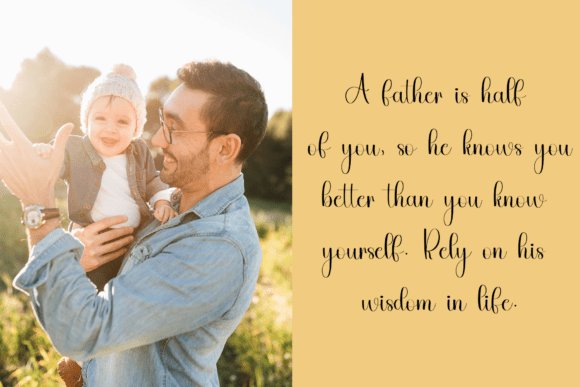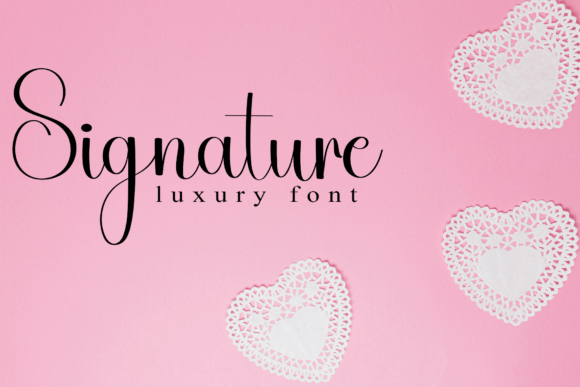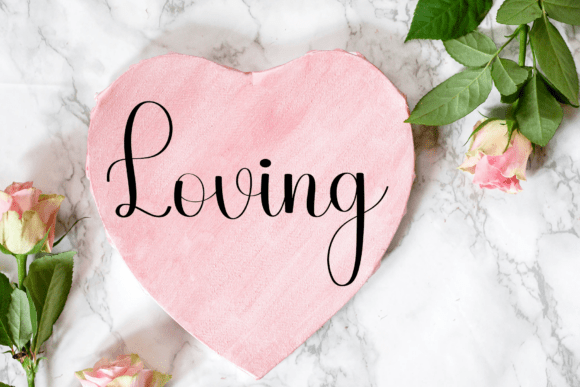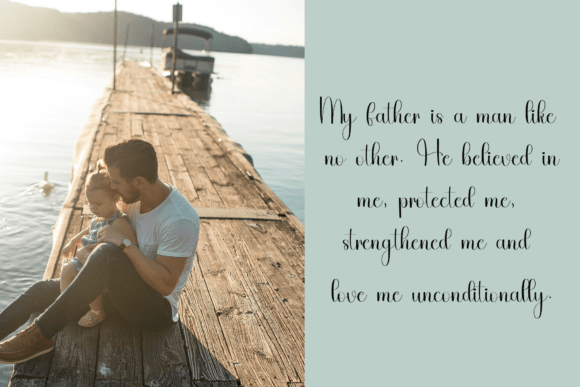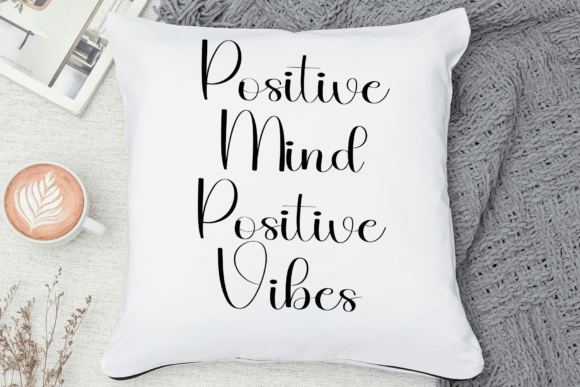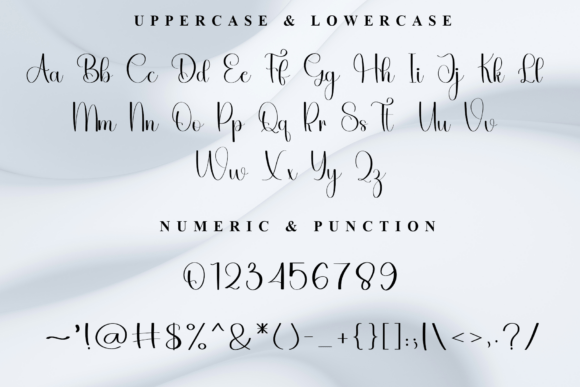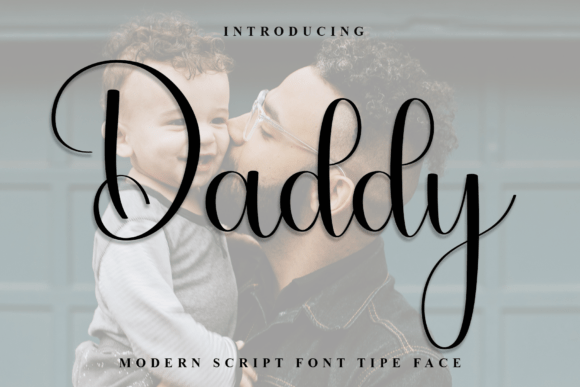
Daddy Font: The Perfect Choice for Creative and Personal Projects
Are you looking for a font that can add a touch of warmth and friendliness to your designs? Look no further than the Daddy Font. This casual and creative font is perfect for personal projects, invitations, social media graphics, and more. Its round, playful strokes create a relaxed and approachable feel that’s sure to capture the attention of your audience.
The Characteristics of Daddy Font
The Daddy Font is a hand-drawn font that boasts a charming and unique aesthetic. Its playful strokes and rounded edges give it a friendly and approachable feel, making it perfect for designs that require a personal touch. The font is equipped with standard PUA Encoded glyphs, which make it compatible with various application engines such as Adobe Photoshop, Corel, Adobe Illustrator, Canva, and many others.
Uses of Daddy Font
The Daddy Font is a versatile font that can be used in a variety of design projects, including:
- Personal projects: The Daddy Font is perfect for personal projects such as photo albums, scrapbooking, and crafting.
- Invitations: The font’s playful and friendly aesthetic makes it ideal for invitations, including birthday parties, baby showers, and weddings.
- Social media graphics: The Daddy Font can add a touch of personality to your social media graphics, including Facebook posts, Instagram stories, and Twitter headers.
- Crafting: The font is perfect for crafters who want to add a personal touch to their projects, including handmade cards, gift tags, and DIY decorations.
Benefits of Using Daddy Font
There are several benefits to using the Daddy Font in your designs, including:
- Unique aesthetic: The Daddy Font has a unique and charming aesthetic that sets it apart from other fonts.
- Easy to read: The font’s playful strokes and rounded edges make it easy to read, even at small sizes.
- Versatile: The Daddy Font can be used in a variety of design projects, from personal projects to commercial designs.
Tips for Using Daddy Font
Here are some tips for using the Daddy Font:
- Use it for headings: The Daddy Font is perfect for headings and titles, as it adds a touch of personality to your design.
- Pair it with other fonts: The Daddy Font can be paired with other fonts to create a unique and interesting design.
- Experiment with font sizes: Experiment with different font sizes to create visual interest in your design.
- Use it for creative projects: The Daddy Font is perfect for creative projects, such as art journals, sketchbooks, and mixed media designs.
The Daddy Font is a versatile and charming font that’s perfect for designers and crafters who want to add a touch of warmth and friendliness to their designs. Its playful strokes and rounded edges create a relaxed and approachable feel that’s sure to capture the attention of your audience. With its PUA Encoded glyphs, the font is compatible with various application engines, making it easy to use in a variety of design projects. So why not give the Daddy Font a try and see how it can add a unique touch to your designs?